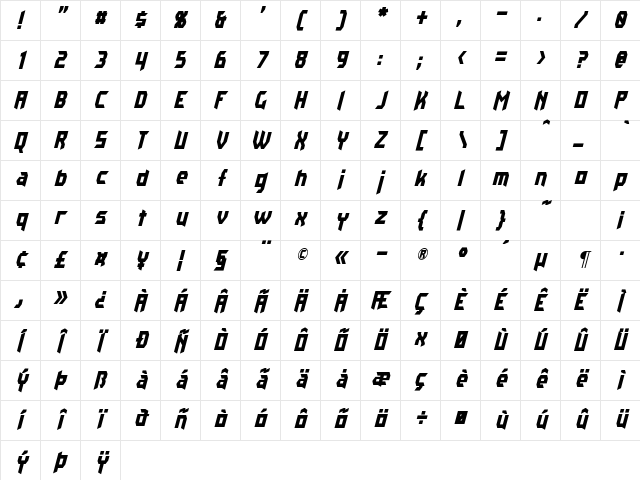
Kaplah Italic Free Font
Kaplah Italic
Foundry: Pixel Sagas
Designer: Neale Davidson
Design Context for Kaplah
Kaplah is a composed and adaptable typeface that performs quietly and consistently across a wide range of design contexts. The slanted form adds forward momentum and visual energy.